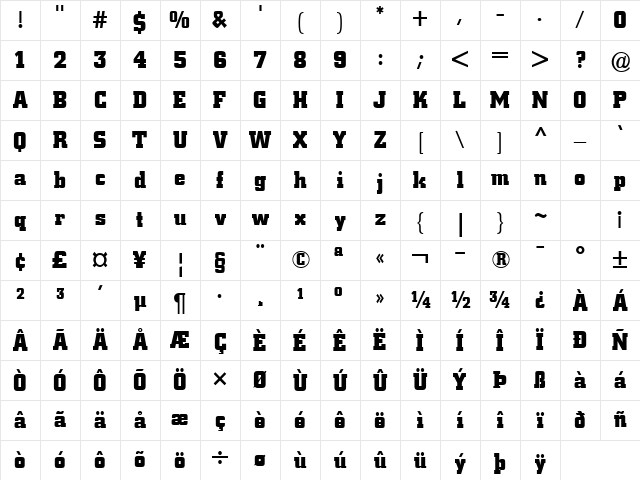
Borghs Normal Free Font
Borghs Normal
Borghs Family
Complete Borghs Normal glyph index. Displaying only characters natively supported by Borghs Normal font.
Design Context for Borghs
Borghs is a composed and adaptable typeface that performs quietly and consistently across a wide range of design contexts.